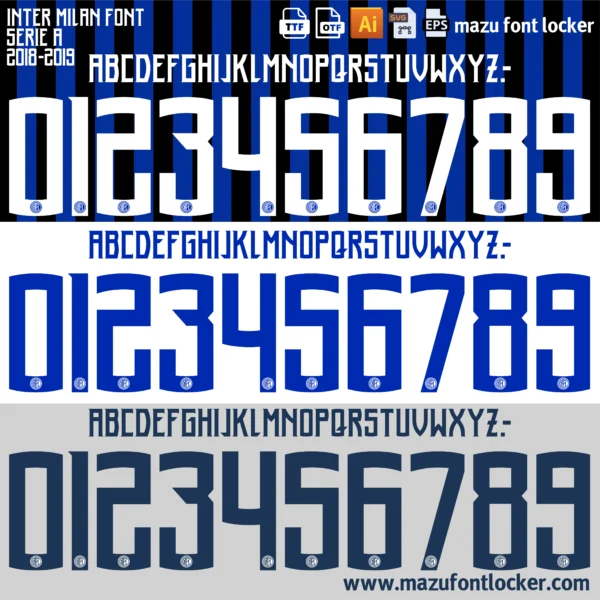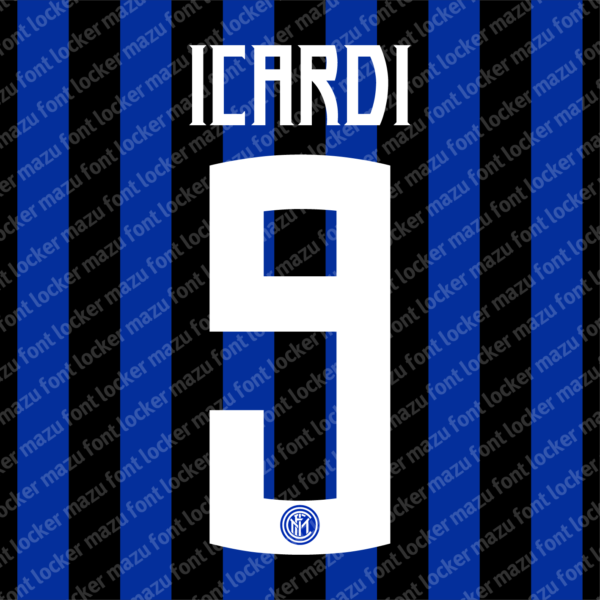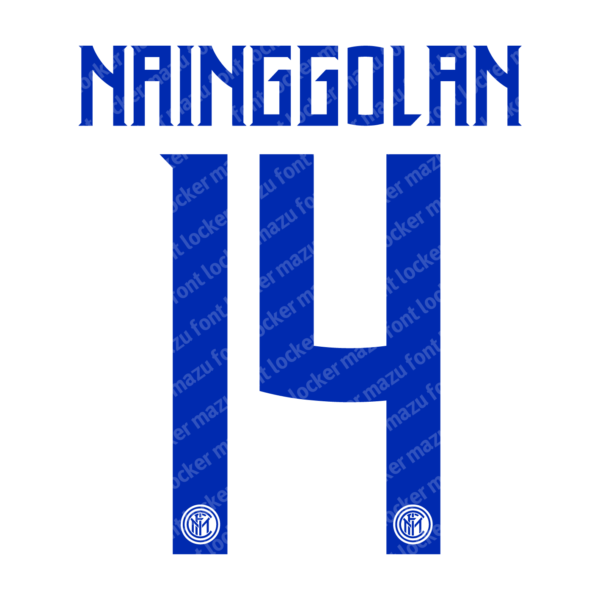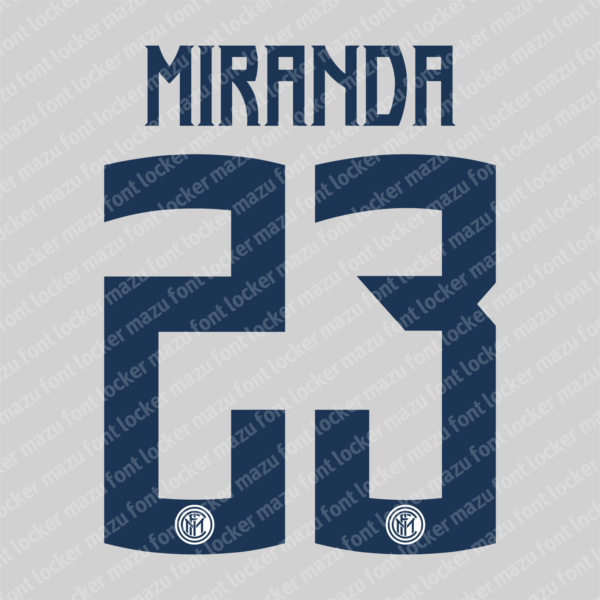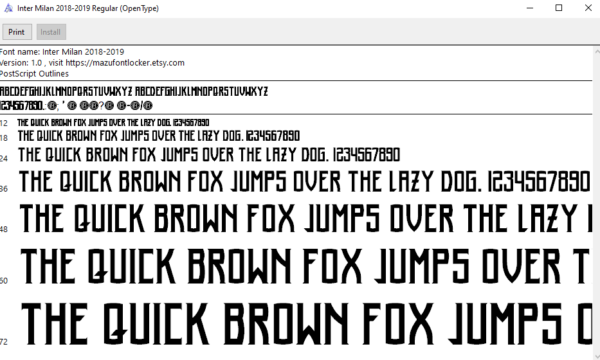
Inter Milan 2018-2019 Font Vector – Powerful Spalletti Revival Glory
Download the Inter Milan 2018-2019 Font Vector (AI, EPS, SVG, PDF, OTF, TTF) and powerfully recreate the bold, majestic, and explosive match-style lettering worn by Inter Milan during their dramatic 2018-2019 campaign. This font captures the intense and commanding typography that embodies the fierce blue-and-black Nerazzurri warrior spirit, delivering unmatched authenticity, relentless attacking power, and iconic San Siro dominance for premium jersey mockups and football designs.
Inter Milan 2018-2019 Font Vector – Authentic Nerazzurri Typeface
Download the Inter Milan 2018-2019 Font Vector and powerfully recreate the bold and dynamic match-style lettering worn by the Inter Milan squad during their iconic 2018-2019 season. This font captures the strong, elegant, and commanding typography that embodies the passionate black-and-blue Nerazzurri spirit, delivering unmatched authenticity for premium jersey mockups and football designs.
Why Choose Inter Milan 2018-2019 Font
This font stands out because of its sharp details and legendary club identity. Every letter and number is crafted to match the exact style used on the players’ shirts during the exciting 2018-2019 season. Whether you are making realistic retro shirt templates or high-energy football content, the Inter Milan 2018-2019 Font gives your designs that authentic Nerazzurri intensity.
The letterforms in the Inter Milan 2018-2019 Font are tall, bold, and highly refined. The strokes have a strong yet elegant weight that looks powerful and prestigious on the back of jerseys while maintaining excellent clarity and sophistication.
The numerals use clean curves and firm edges, giving them a confident and premium appearance. This design ensures great legibility whether used in large print formats, digital mockups, or video content.
- Full uppercase A–Z and numbers 0–9 in authentic Inter 2018-2019 style
- Special Inter Milan crest glyph for accurate shirt number detailing
- Multilingual Latin character support including diacritics
- Create highly realistic Inter Milan 2018-2019 jersey mockups with accurate lettering
- Design stunning retro matchday posters, score graphics, and squad announcements
- Produce custom Nerazzurri merchandise with a classic and bold aesthetic
- Includes the exact crest glyph placement used under player numbers
Inter Milan 2018-2019 Season
During the 2018-2019 season, Inter Milan, proudly known as I Nerazzurri, showed a strong resurgence under manager Luciano Spalletti. This campaign marked an important stepping stone in the club’s modern revival after several inconsistent years following their last Scudetto in 2010.
The team featured a mix of experienced stars and solid defenders, led by top scorer and captain Mauro Icardi (who netted 19 goals in Serie A), Ivan Perišić, Radja Nainggolan, the rock-solid centre-back Milan Škriniar, and reliable goalkeeper Samir Handanović. Other key contributors included Lautaro Martínez (who started to shine), Antonio Candreva, and Matteo Politano. For the latest news and updates about Inter Milan, visit the official Inter Milan website.